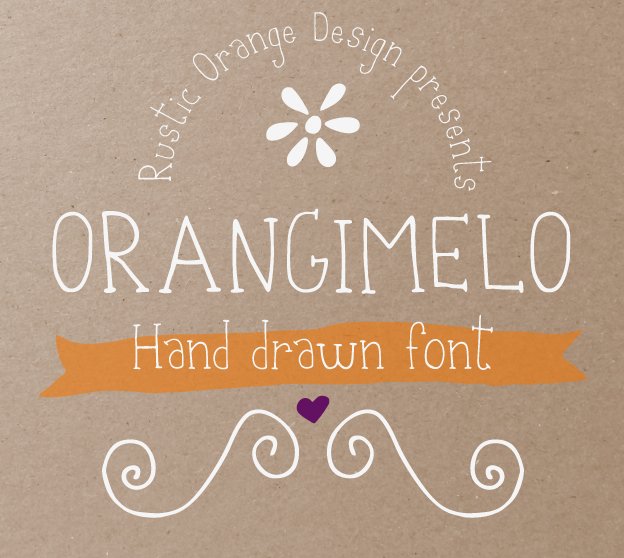
Orangimelo Hand Drawn Font
This beautiful and pleasant hand drawn typeface is designed for handmade products needs. Feminine and elegant with his thin body, joyful with his aleatory serifs, inspires a dance of happiness.
It contains the traditional alphabet letters in upper and lower cases, punctuation, current accents for French and Spanish and also cute (heart, flower, swirls).